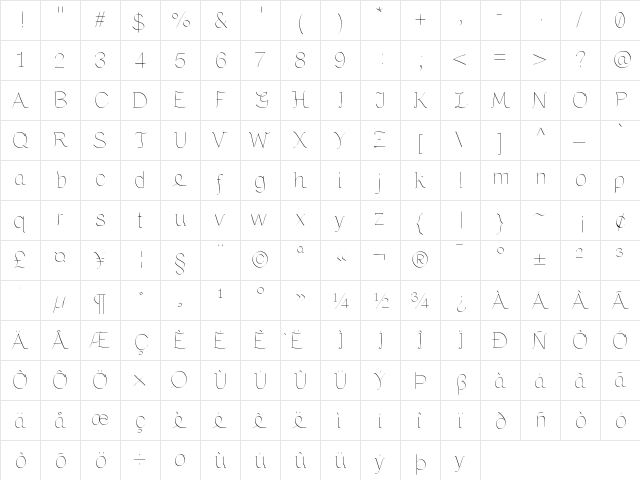
Maria Medium Free Font
Maria Medium
Foundry: Kreativ Font
Designer: Andrei Olaru
Maria Family
Maria Medium
Design Context for Maria
Maria is a composed and adaptable typeface that performs quietly and consistently across a wide range of design contexts.